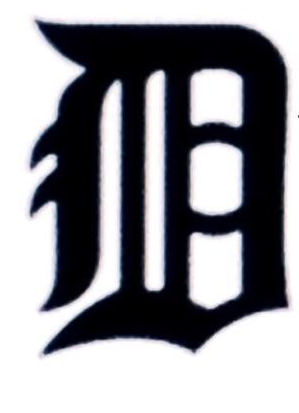
I am having trouble identifying this font. It is the only letter that I have to go by.
I have FMF Pro, but it isn't coming up with it either.
I looked at both Find my Font database and my database (some 100.000s fonts) but I can't find a match.
If this is a monogram it could be custom-made (not a font) or loosely based on a font.
The closer I can see is the "D" of "Old English" available by Adobe & Monotype (maybe from others too):
It's far from being a match, but it could be a good starting point if you want to recreate it.